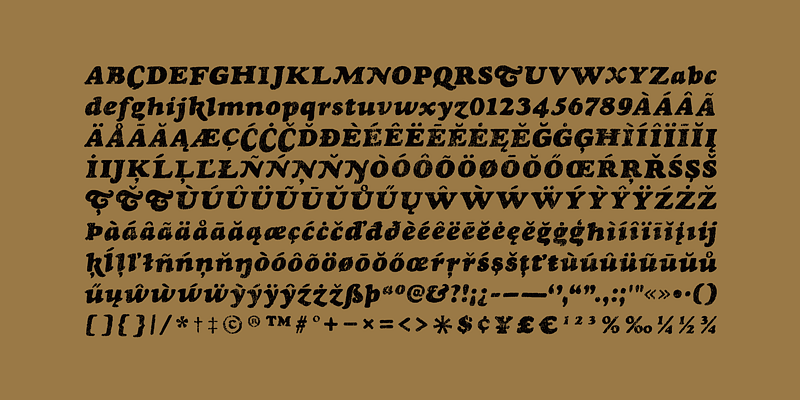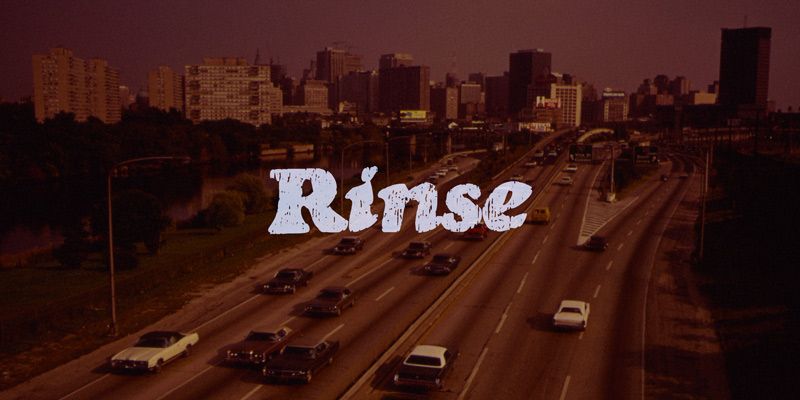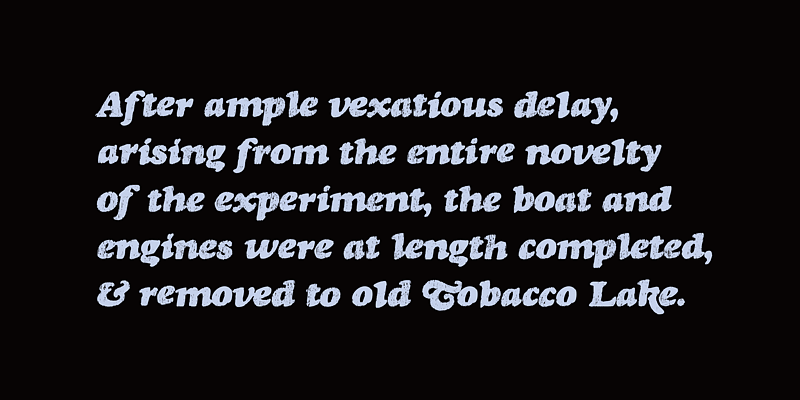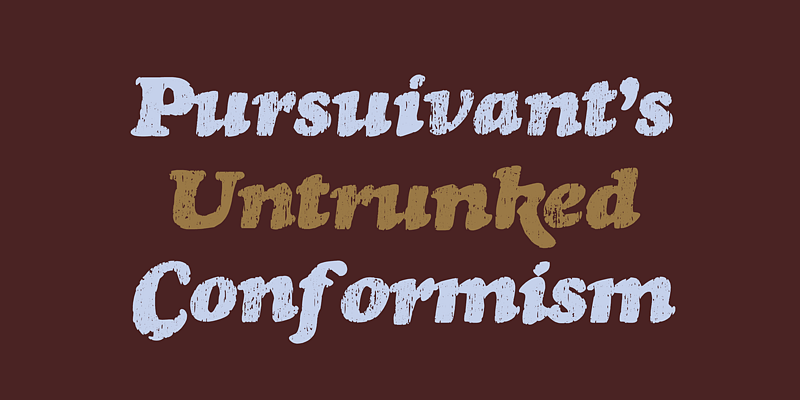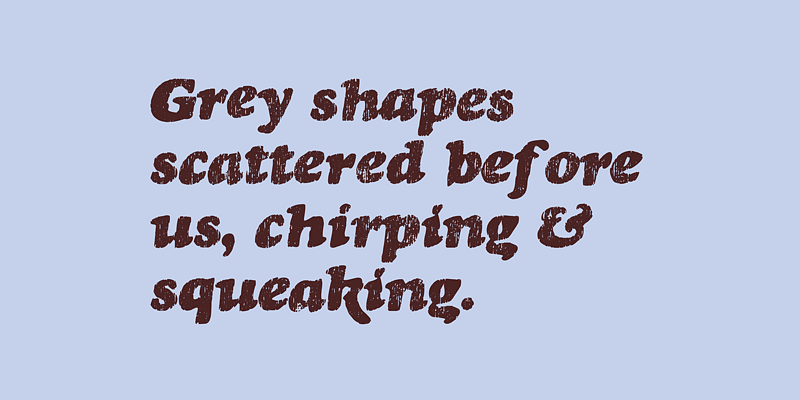
Rinse takes the heavy italic forms of Goudy Heavyface into the world of worn T-shirt printing. Its slanted, old-style letters keep the confidence of the source while irregular texture makes the ink appear to have softened and broken on fabric. Letter-pair ligatures vary some combinations, helping a repeated word look less mechanically typeset. The result feels like an object with a history rather than a clean retro headline with distress placed over it. Rinse is particularly effective for band merchandise, summer-camp souvenirs, roadside food graphics, and fictional period props. Use it for names and brief slogans at sizes where both the broad italic movement and the printed surface can register.